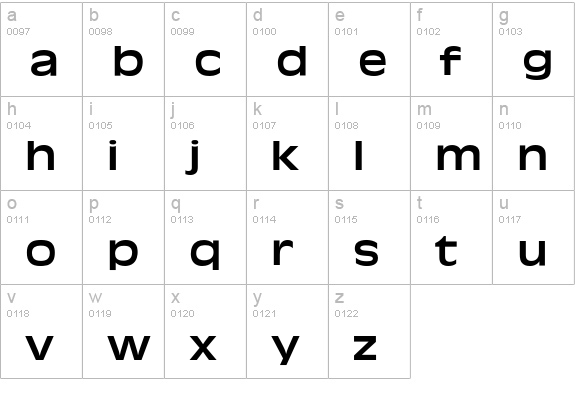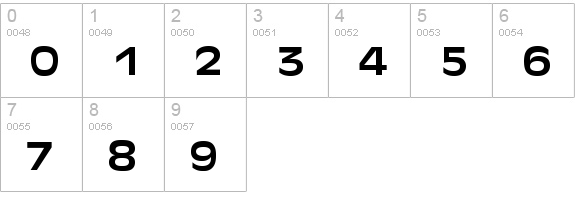
Antique Olive Extended Font Details
Antique Olive Extended is a distinctive, extended-width variant in the Antique typeface family \xE2\x80\x94 well suited to design and typography projects.
Antique Olive Extended is a timeless and elegant font that exudes sophistication and charm. Its elongated and graceful letterforms make it perfect for adding a touch of class to any design project. The classic yet modern styling of Antique Olive Extended makes it versatile and suitable for a wide range of applications, from branding to editorial design. This exquisite font is now available for free download at FontsMarket.com, allowing designers and creatives to effortlessly incorporate its beauty into their work. Whether used for headlines, body text, or any other design element, Antique Olive Extended adds a touch of refinement and sophistication that is sure to elevate any project to new heights. Don't miss the opportunity to enhance your designs with the timeless elegance of Antique Olive Extended - download it for free today at FontsMarket.com and let your creativity shine.